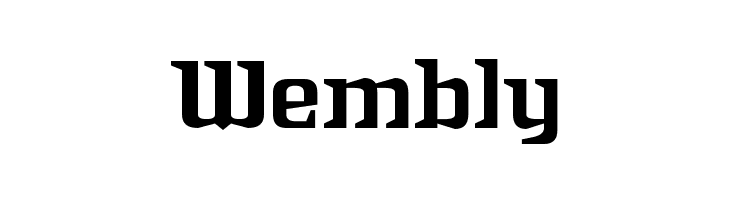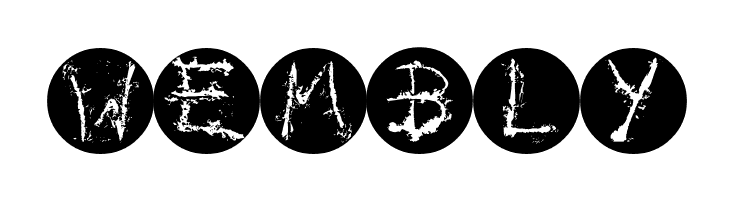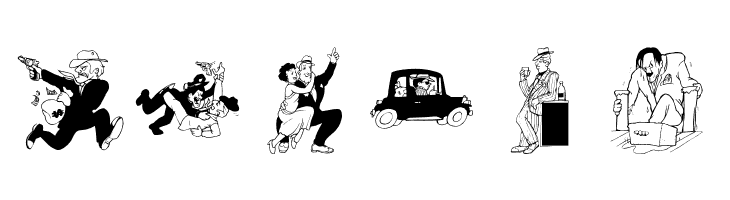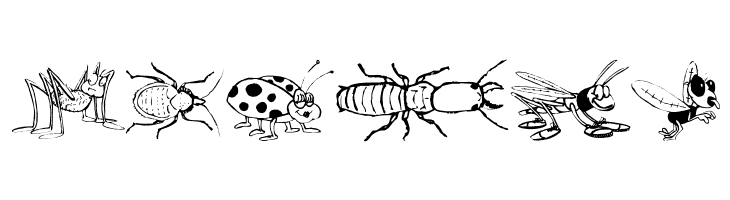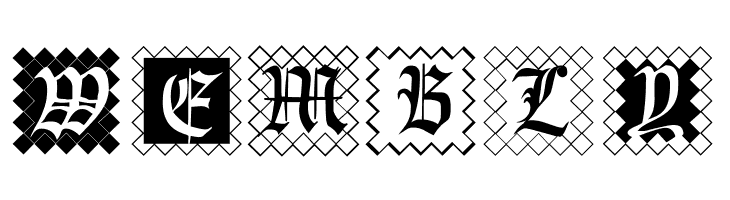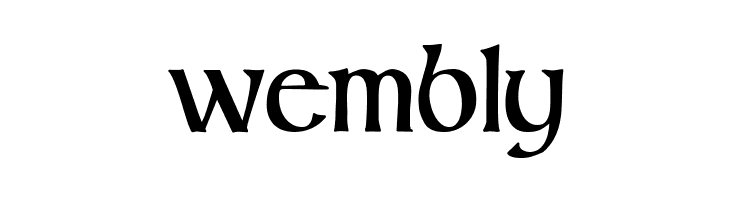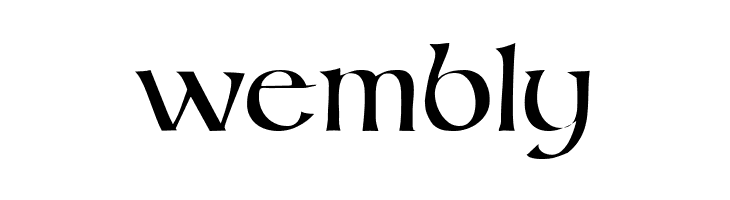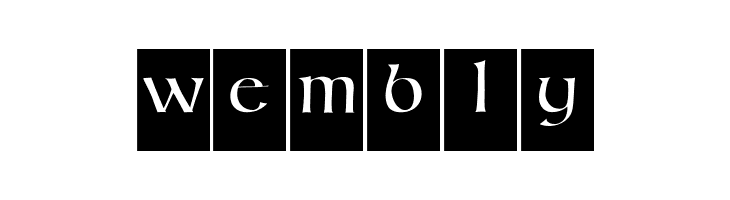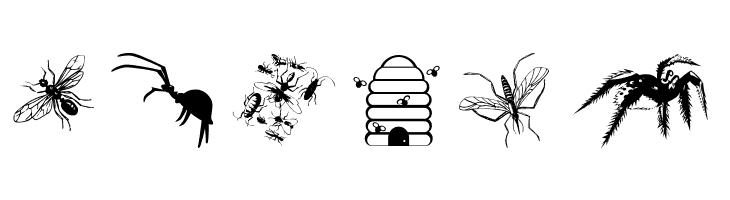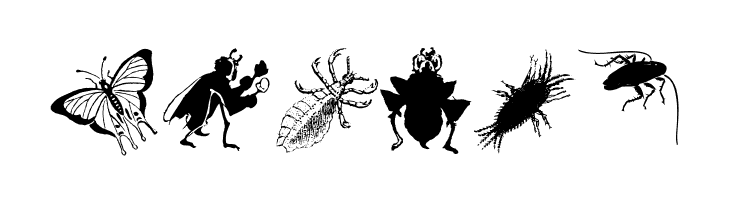
A bold, geometric font with strong, angular lines and a modern, assertive style.
Illustrative dingbat font with gardening and outdoor motifs.
A decorative font with intricate serifs and high contrast, blending modern and vintage styles.
An artistic and decorative font with elaborate, angular designs.
A decorative font with blackletter-style letters framed in intricate patterns.
A distressed, grunge-style font with characters in circular backgrounds, resembling worn-out ink stamps.
A distressed, stamp-like font with characters encased in circular rings, offering a vintage, grunge aesthetic.
A decorative font with intricate illustrations within each character.
A bold, rounded font with a playful and approachable style.
A bold, rounded font with a playful and friendly appearance.
Highly detailed insect illustrations replace standard alphanumeric characters.
Illustrative dingbat font with insect and nature-themed pictograms.
A decorative font with playful insect illustrations for each character.
A decorative insect-themed dingbat font with detailed bug illustrations.
A pictorial font using global landmark silhouettes as glyphs.
A playful, hand-drawn font with a sketch-like, whimsical appearance.
A textured serif font with a modern, distressed look.
A bold, modern take on traditional blackletter with sharp, angular lines.
Cartoon gangster-themed pictorial display font.
A bold, angular, and geometric font with a dynamic and energetic style.
A medieval gothic font with sharp serifs and intricate detailing.
A bold, medieval-style font with calligraphic influences and sharp, flowing forms.
A medieval-inspired script with sharp angles and elegant curves.
A decorative Blackletter font with intricate, gothic-inspired letterforms.
An ornate, decorative font with intricate, stained glass-like designs.
A geometric, art deco-inspired font with tall, narrow letterforms and sharp angles.
A modern, geometric font with an Art Deco influence, featuring thin, elongated letterforms.
A bold, pixelated font with a retro, video game-inspired style.
A bold, decorative font with intricate detailing and vintage flair.
A bold, high-contrast serif font with elegant curves and pronounced serifs.
A bold, classic serif font with strong strokes and pronounced serifs.
A bold, decorative font with a vintage double-line shadow effect.
An ornate, decorative serif font with intricate interior patterns.